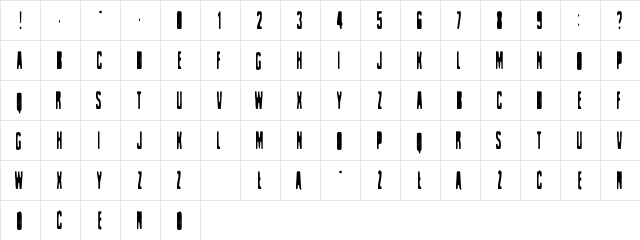
Celofan Regular
| Foundry | High-Logic |
| Designer | High-Logic - Erwin Denissen 1999 |
Design Context for Celofan Typeface
Celofan offers clean, dependable letterforms without strong stylistic allegiance, making it a practical choice for designers who need flexibility.